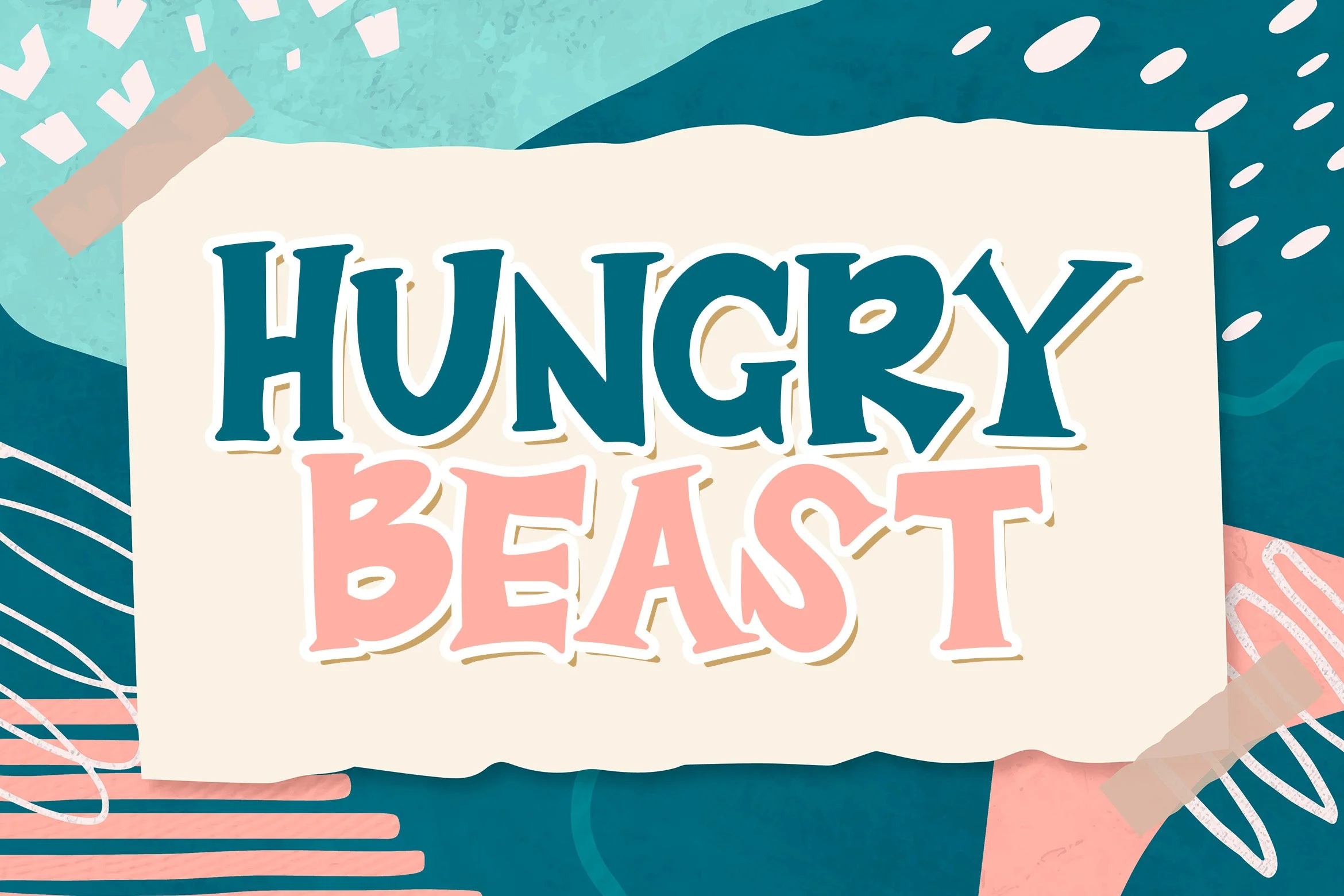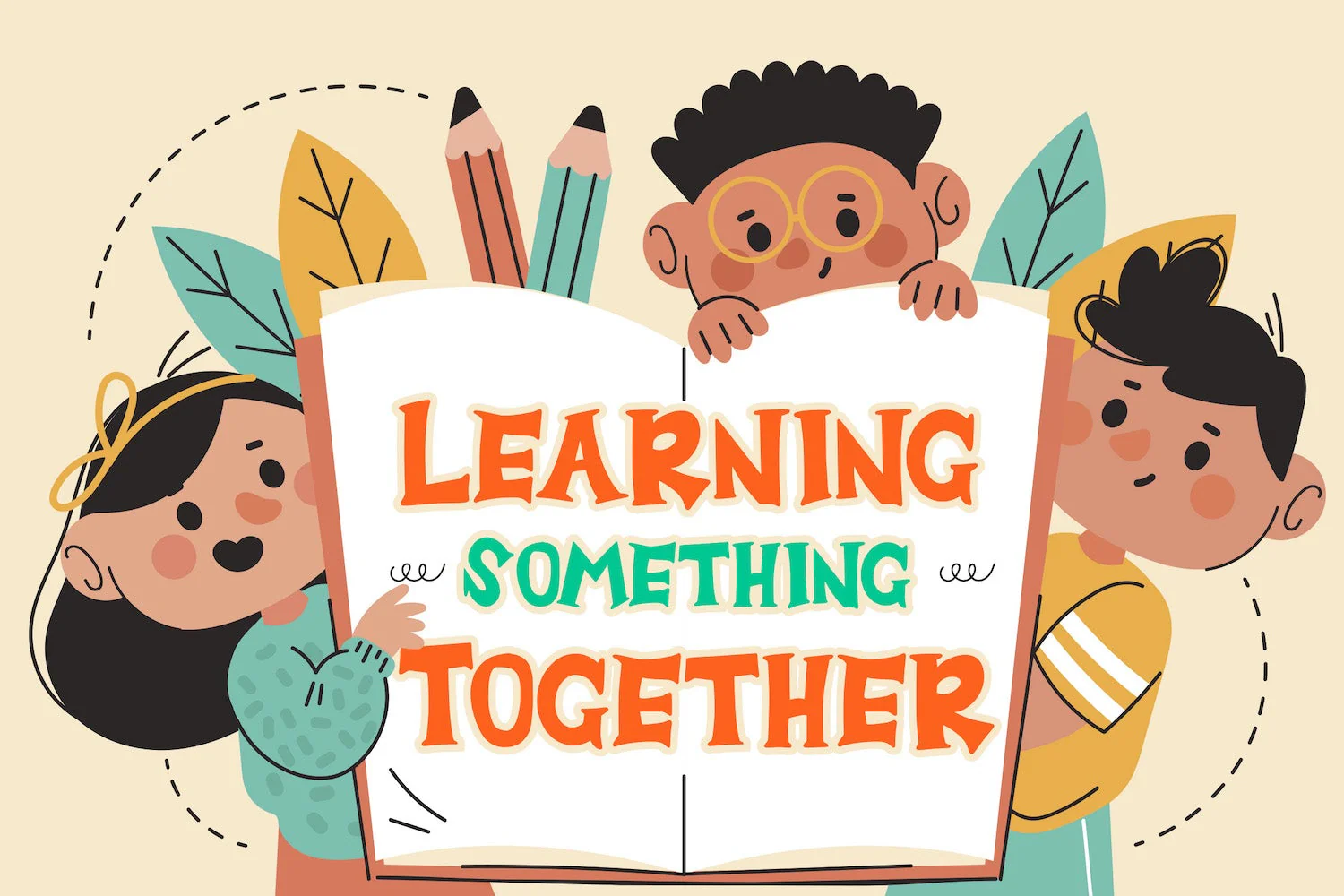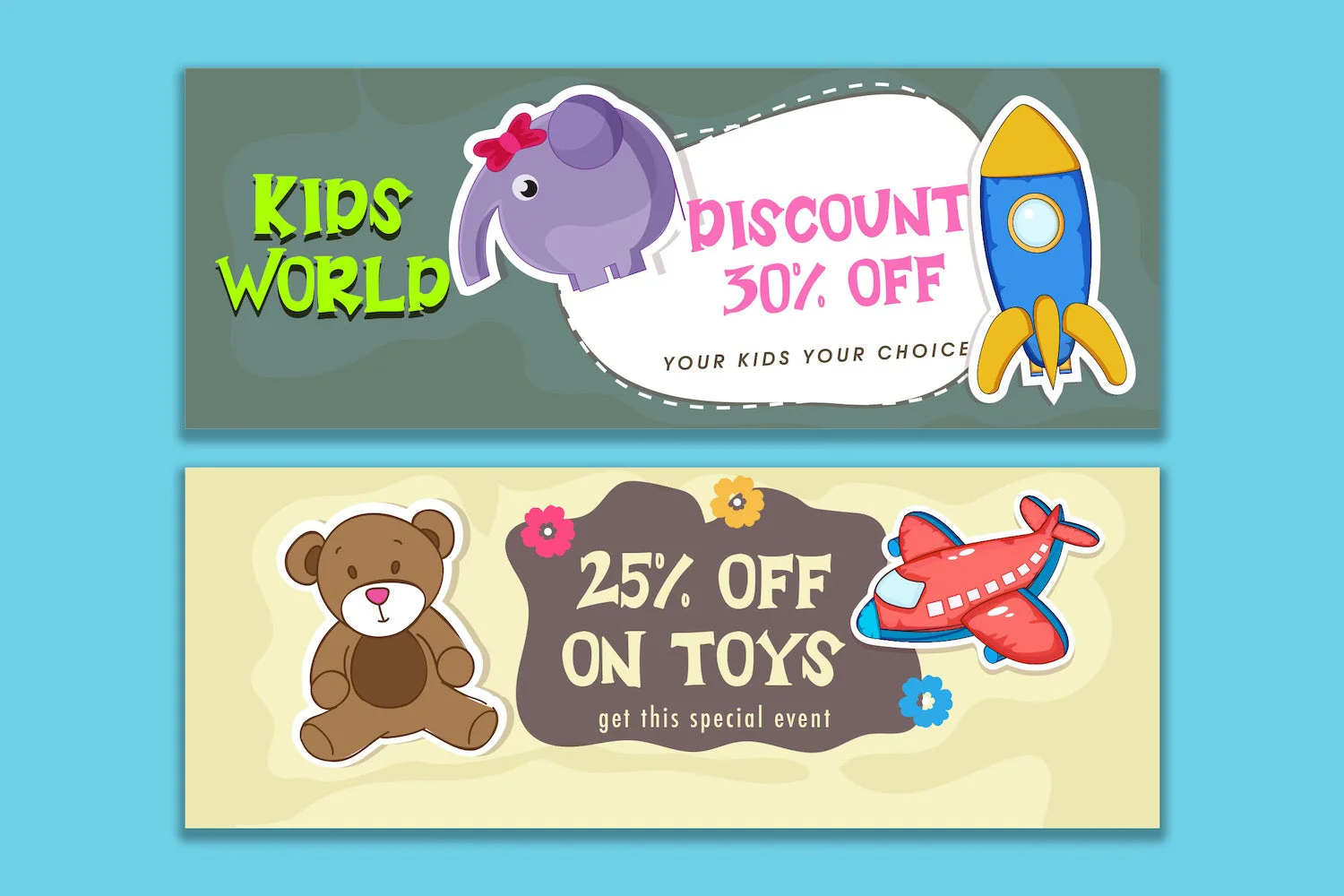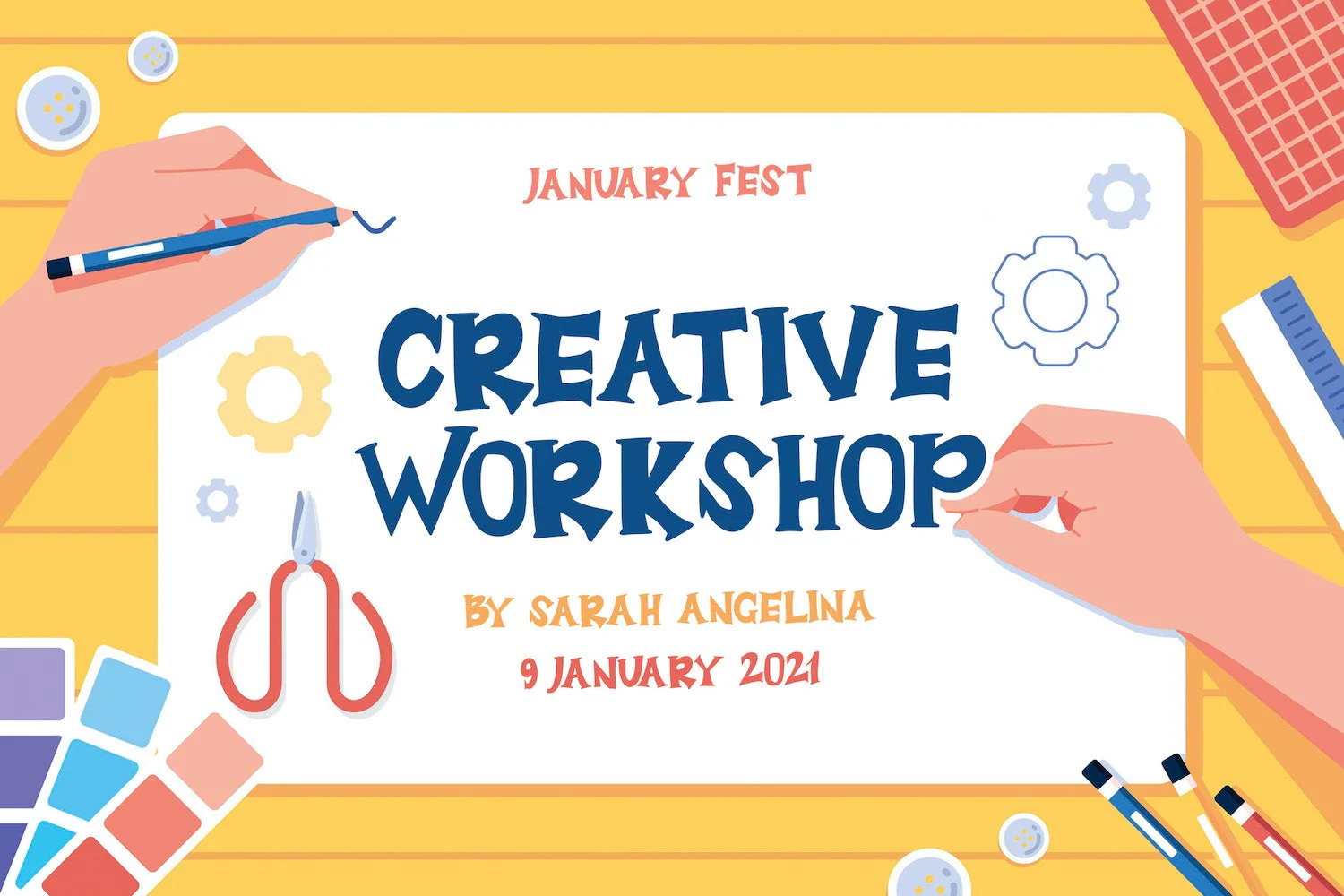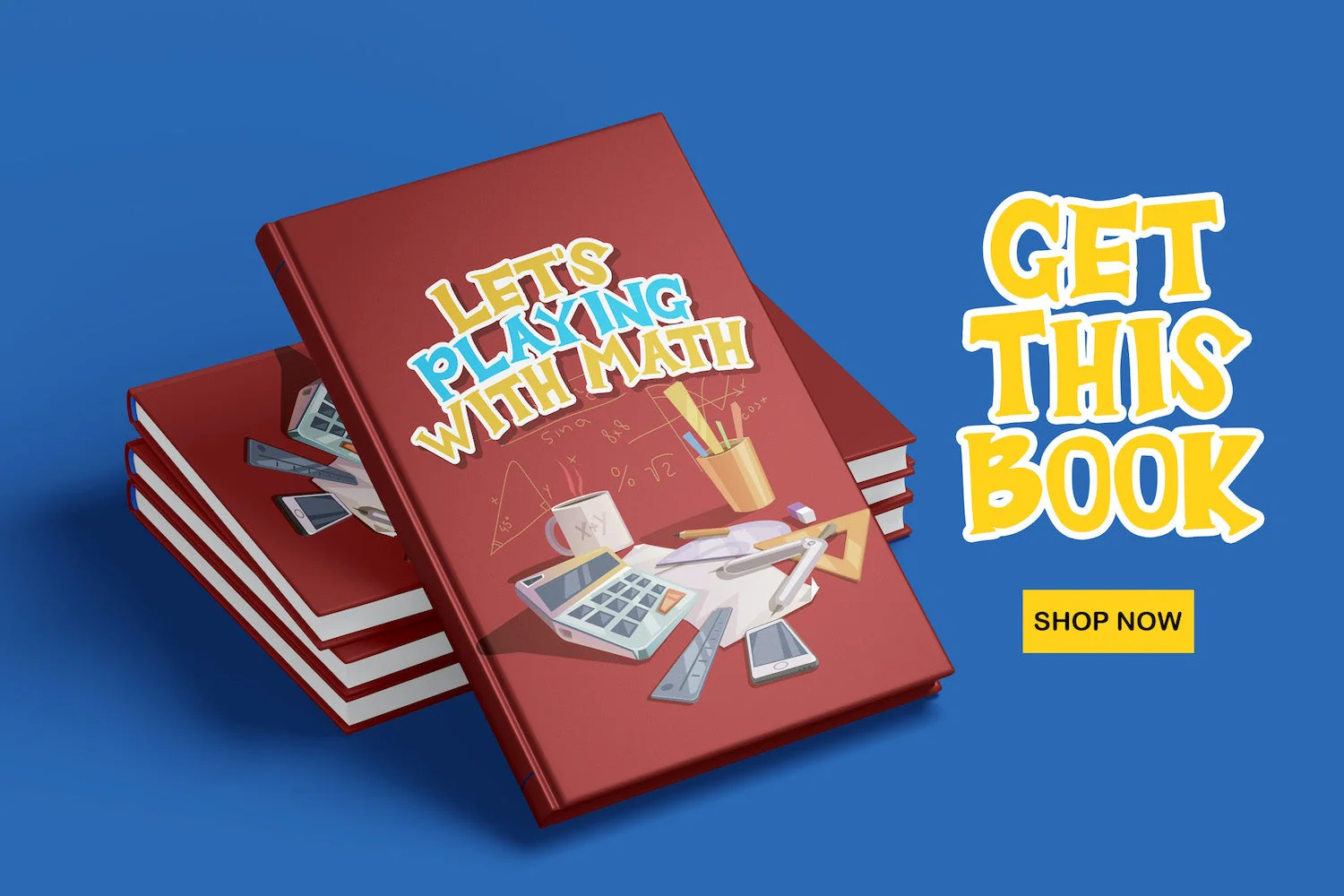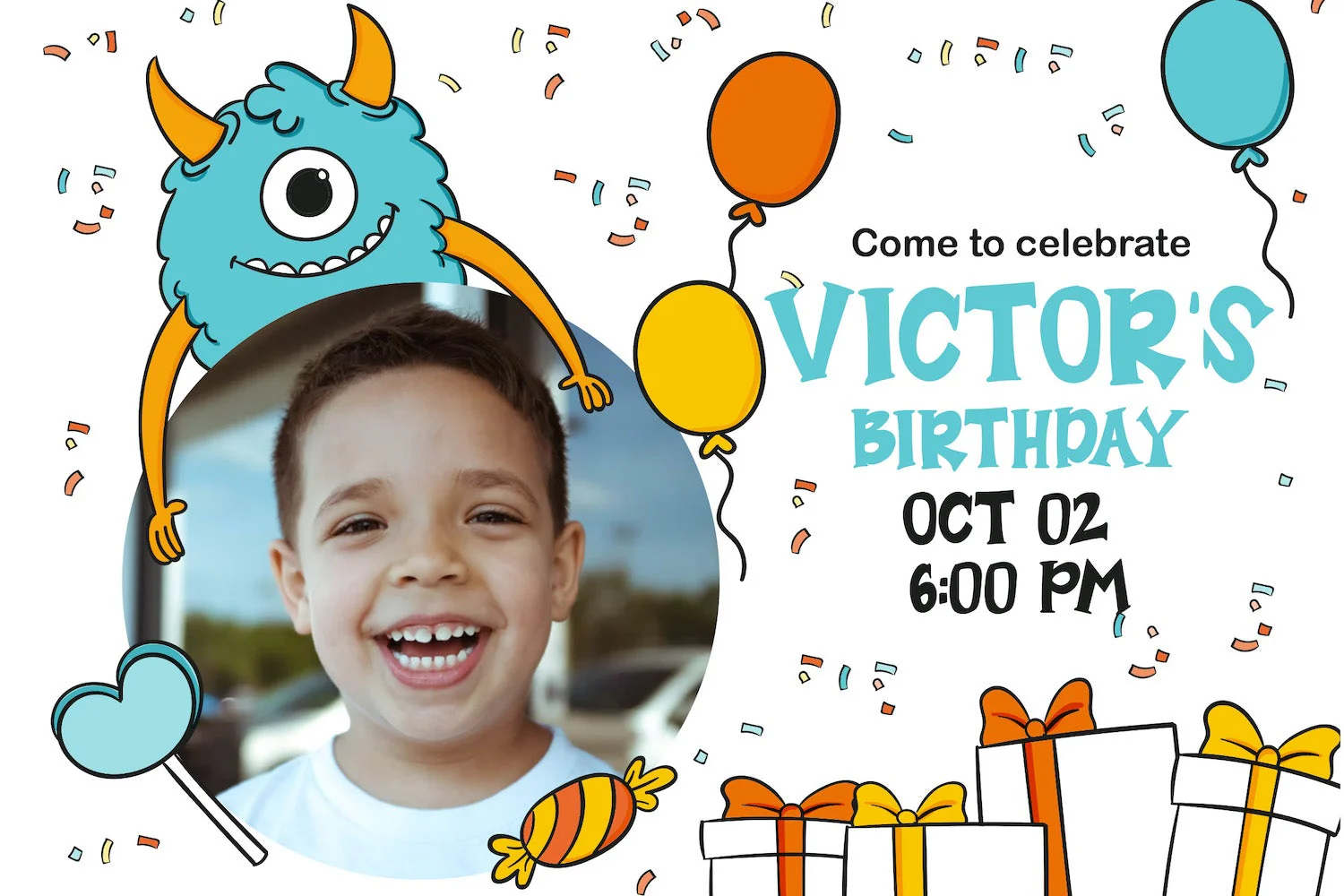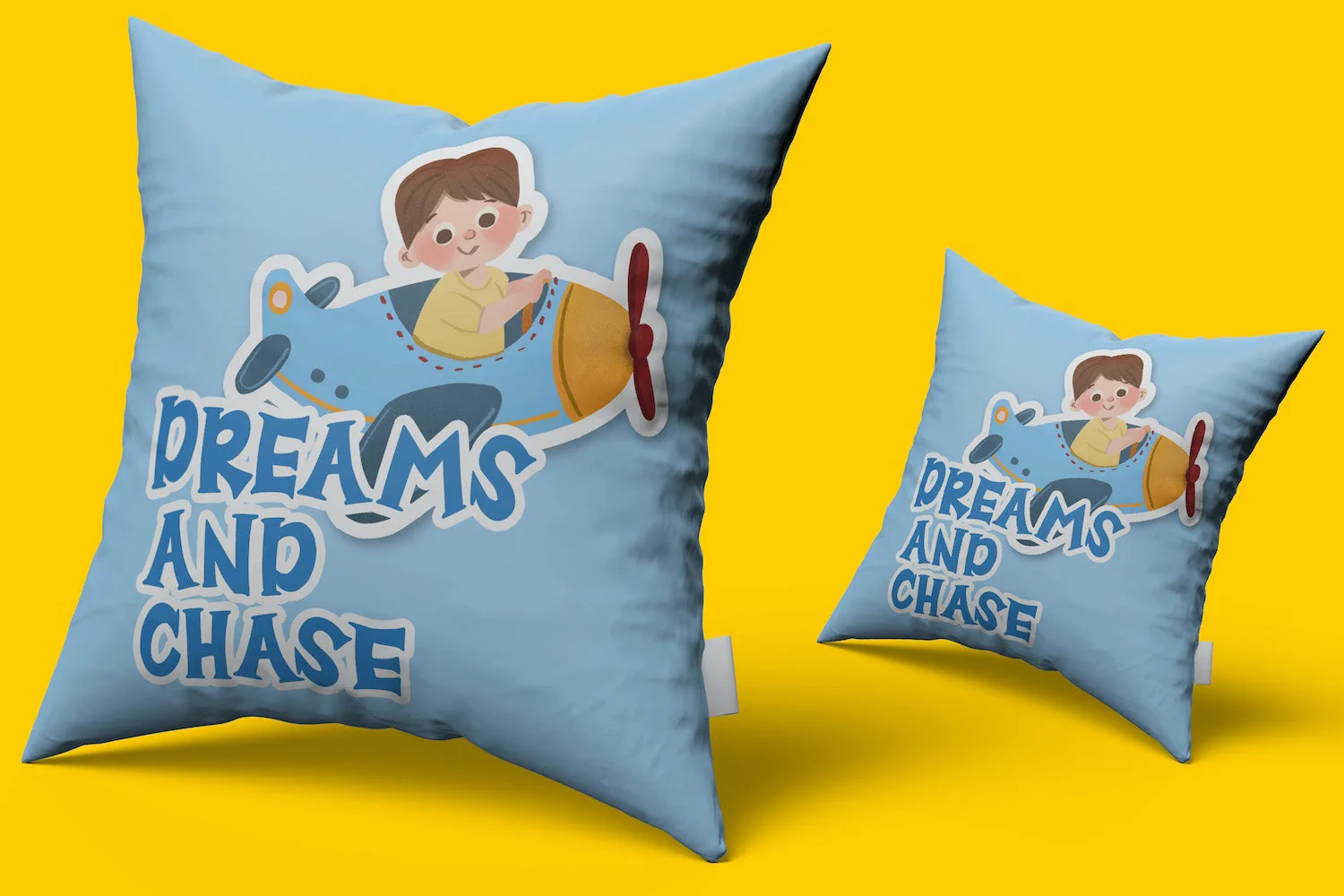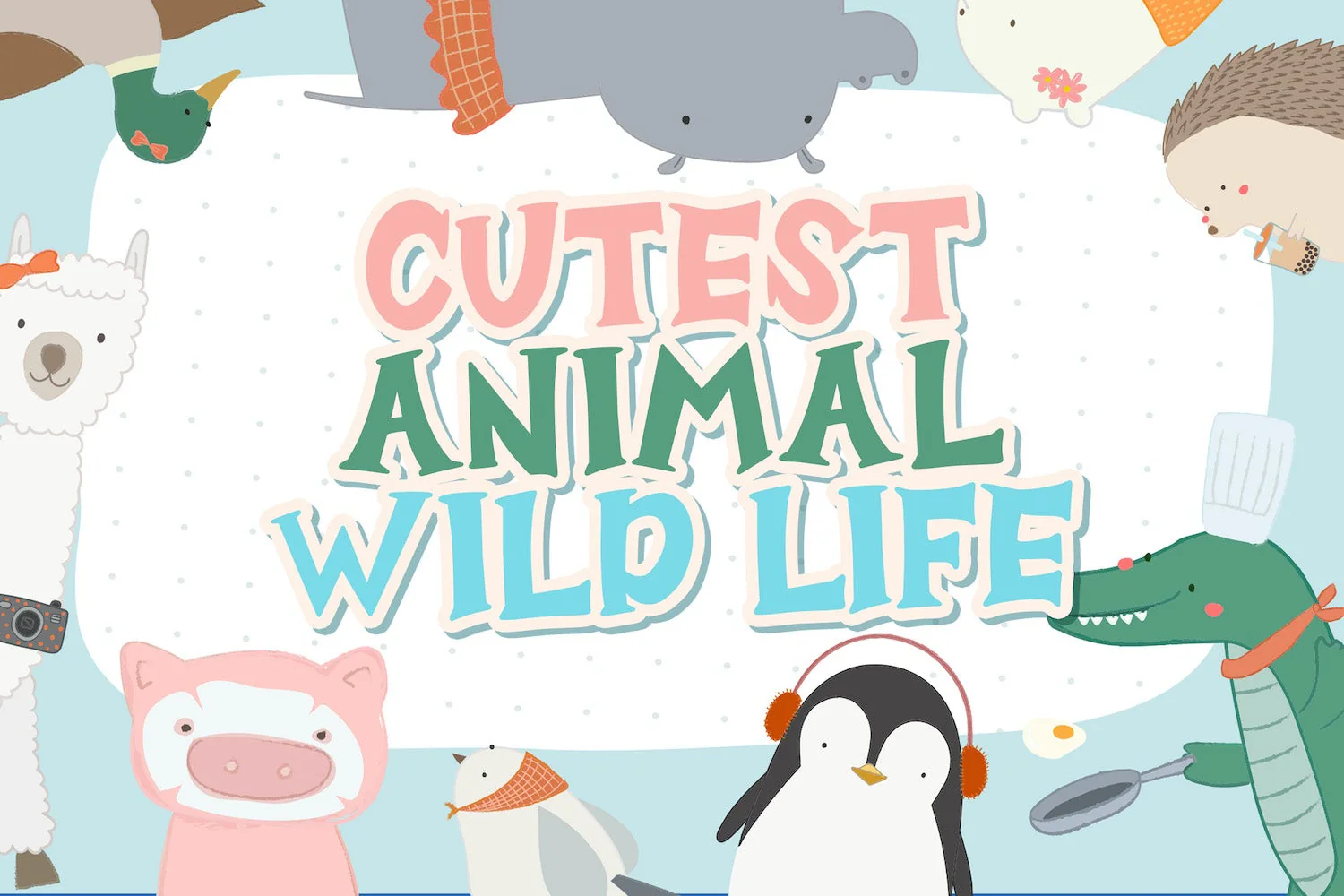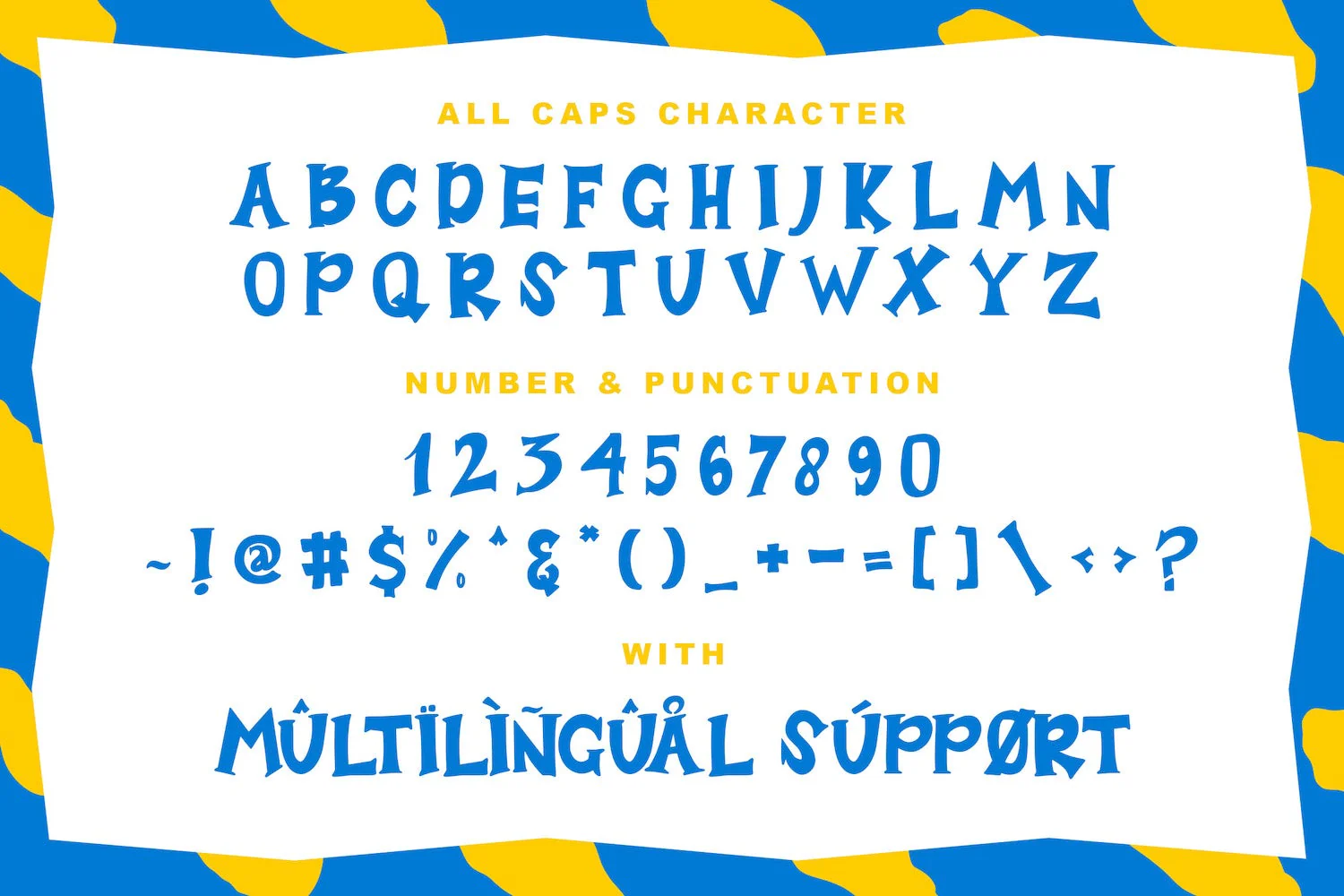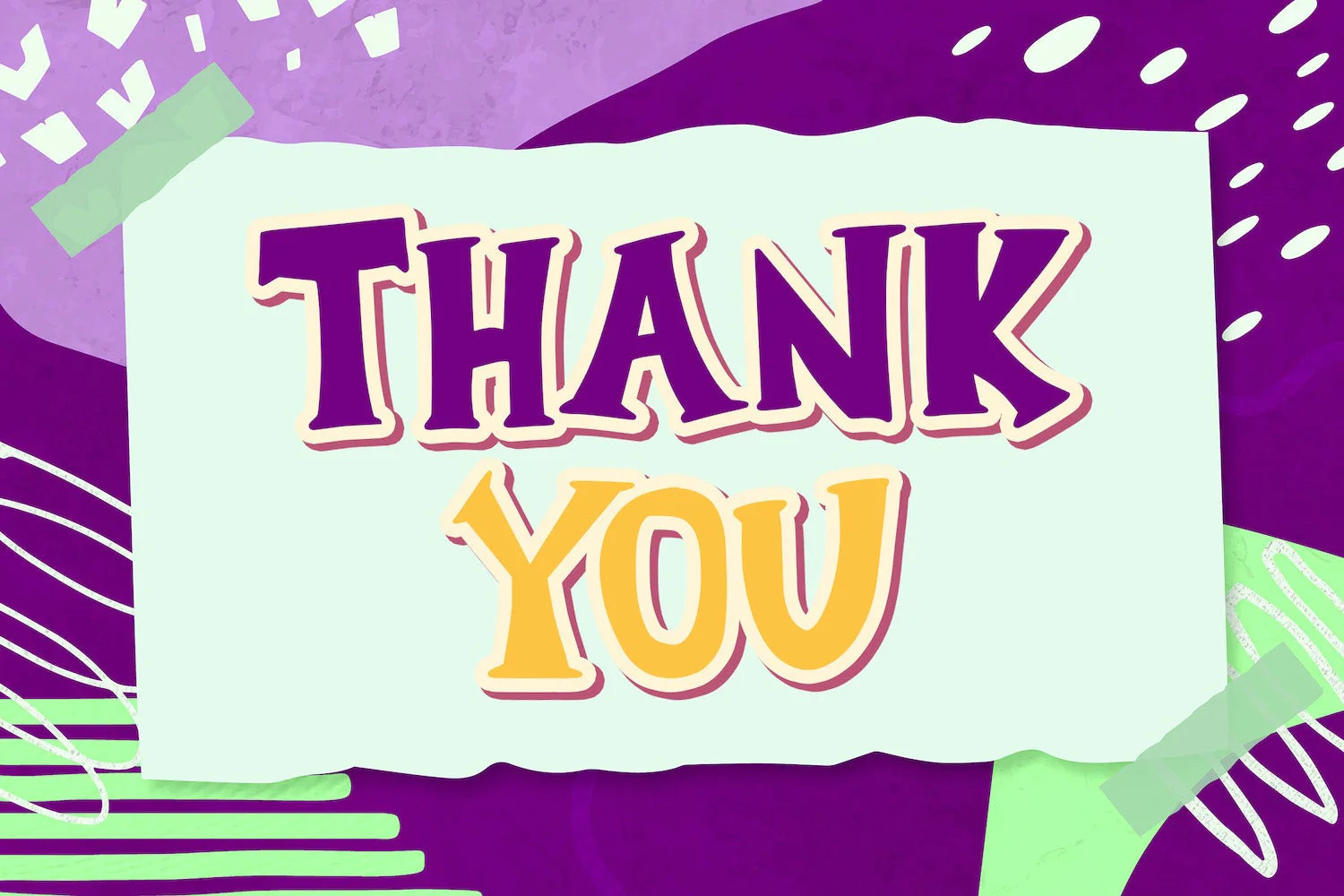
Hungry Beast - Playful Display Font
Introducing Hungry Beast - Playful Display Font
Hungry Beast is a fun display font. Playful and fresh, this font will be a hit for each of your children or school projects!
Introducing Hungry Beast - Playful Display Font
Hungry Beast is a fun display font. Playful and fresh, this font will be a hit for each of your children or school projects!